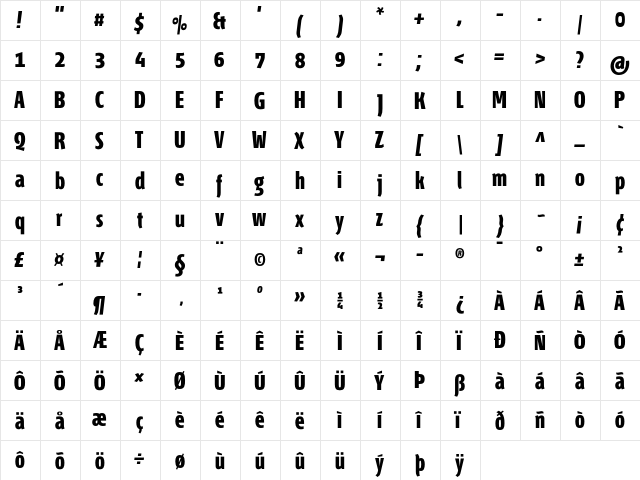
Fontana ND Ll Bold
Design Context for Fontana ND Ll Typeface
Fontana ND Ll takes a measured approach to typography — its balanced proportions and neutral character make it a reliable workhorse for both digital and print work. Its bold stroke weight gives it real presence on the page.